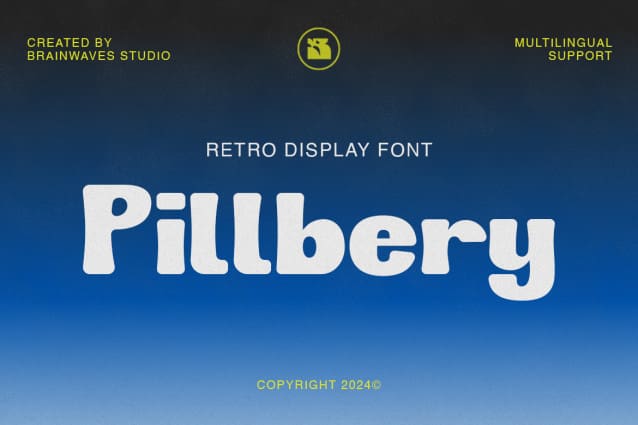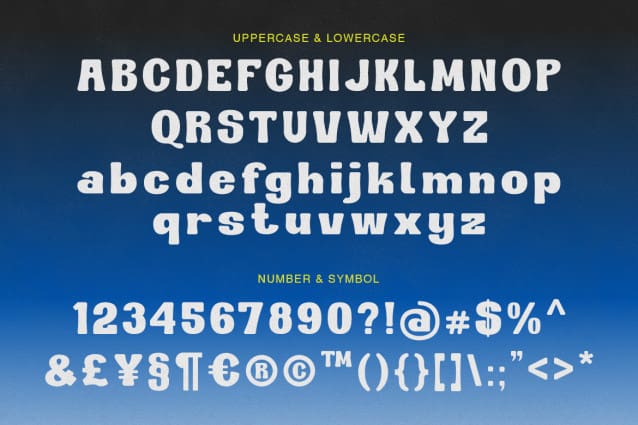
Pillbery Retro Display Font
Pillbery Retro Display Font | A Bold & Playful Retro Display Font
A retro-inspired display font with a fun and nostalgic touch! With its bold, slightly rounded letterforms, Pillbery brings a vintage yet modern feel to your designs.
Perfect for posters, branding, packaging, and any creative project that needs a standout, eye-catching typeface.
A perfect mix of vintage charm and contemporary style. And thick, rounded letterforms that add personality to your designs.
Make your designs pop with Pillbery – the perfect blend of retro charm and contemporary flair!